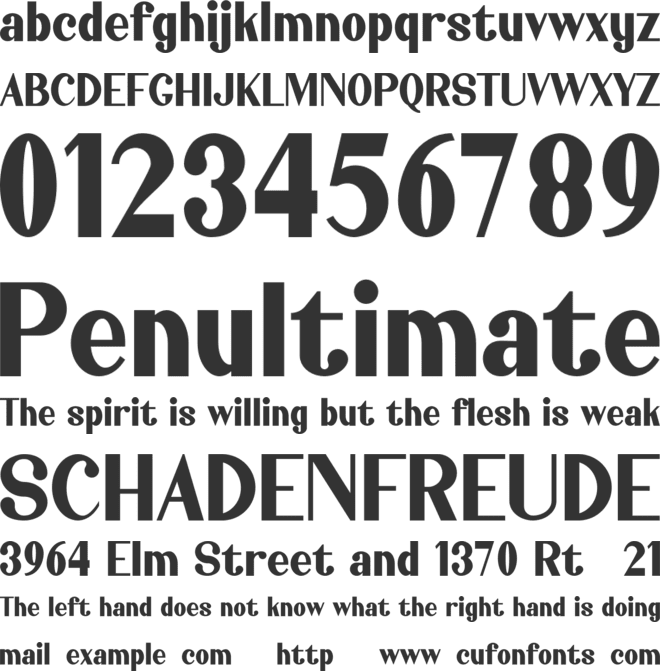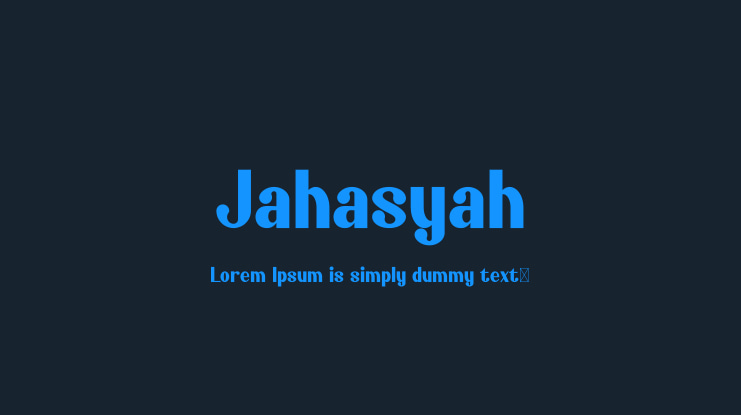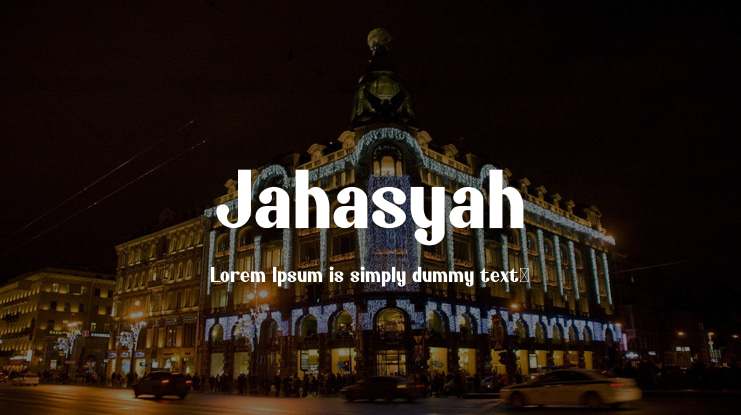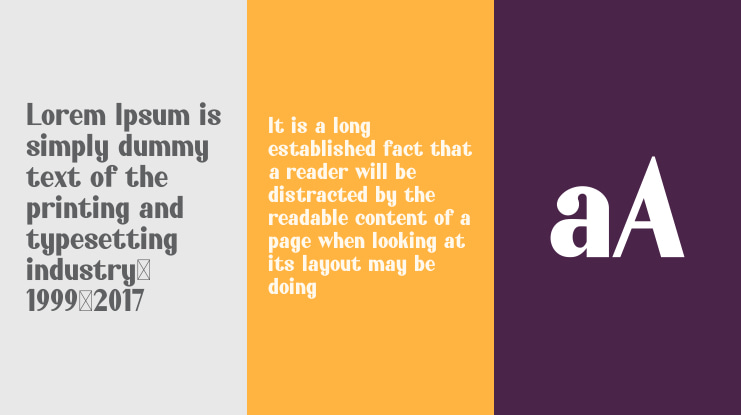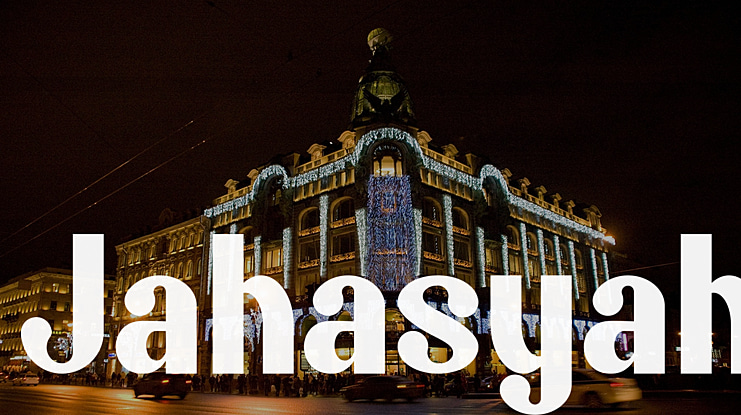
Jahasyah Font
Jahasyah is a modern and sweet display font. Masterfully designed to become a true favorite, this font has the potential to bring each of your creative ideas to the highest level!